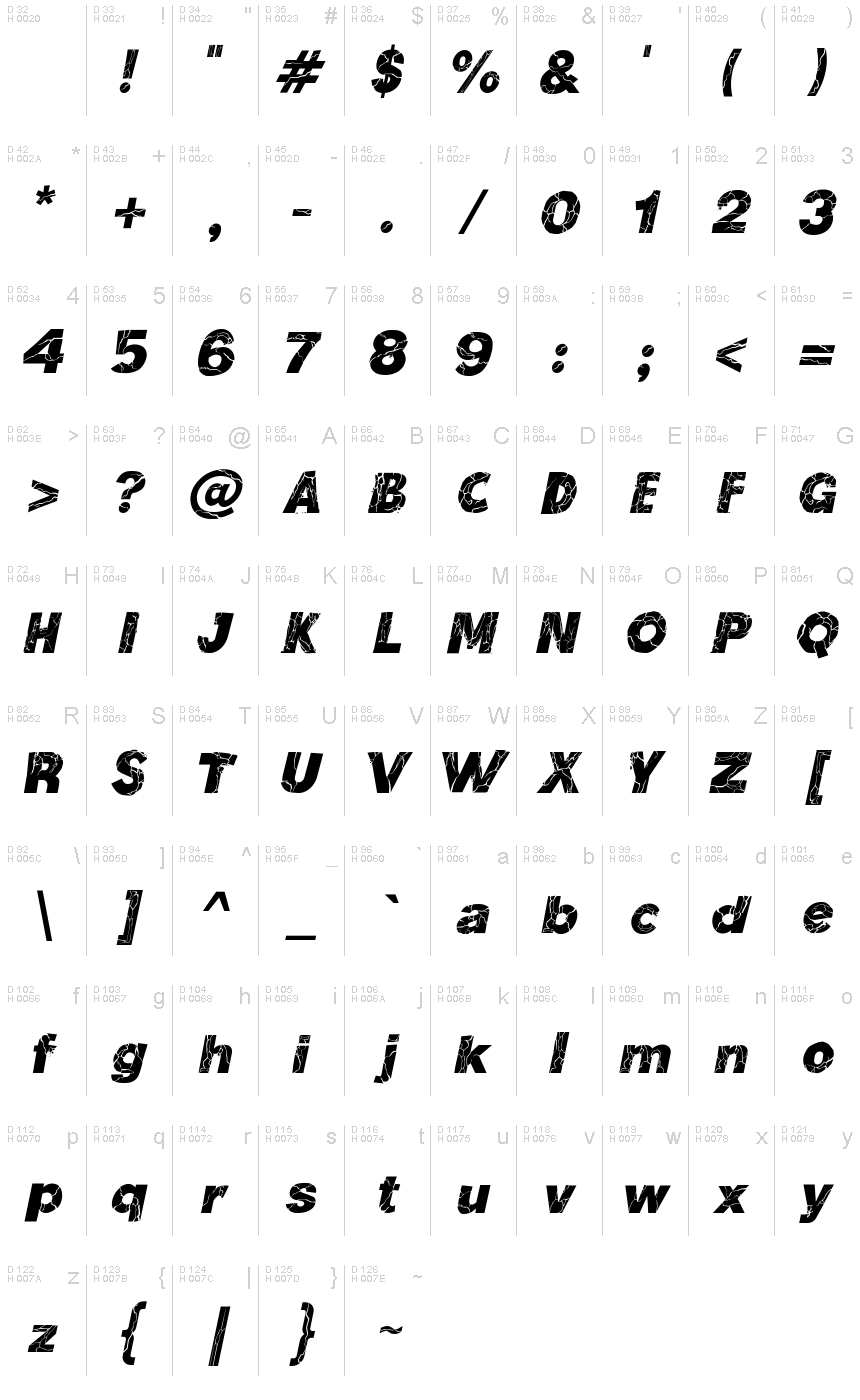
Before Collapse Italic
Captivating and visually striking, the "Before Collapse Italic" font by Galdino Otten Fonts exudes a bold, distorted aesthetic that instantly commands attention. With its dynamic letterforms and avant-garde style, this display font effortlessly evokes a sense of intrigue and raw energy. The bold, uncompromising strokes and unique, distorted curves give the typeface a raw, experimental edge, making it a standout choice for those seeking to make a bold statement.
The versatility of Before Collapse Italic lies in its versatile nature, allowing it to seamlessly integrate into a variety of design contexts. Whether crafting eye-catching headlines, captivating posters, or adding a touch of industrial chic to branding and packaging, this font's distinctive character is sure to leave a lasting impression on audiences. Its bold, distorted aesthetic lends itself particularly well to projects that aim to convey a sense of edginess, unconventionality, or a strong visual impact.